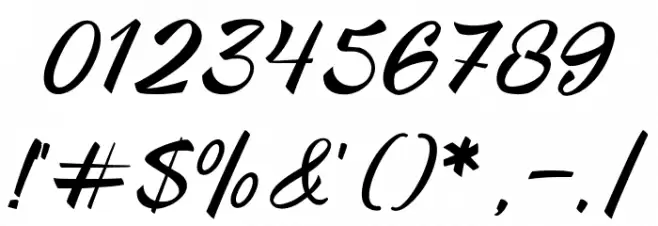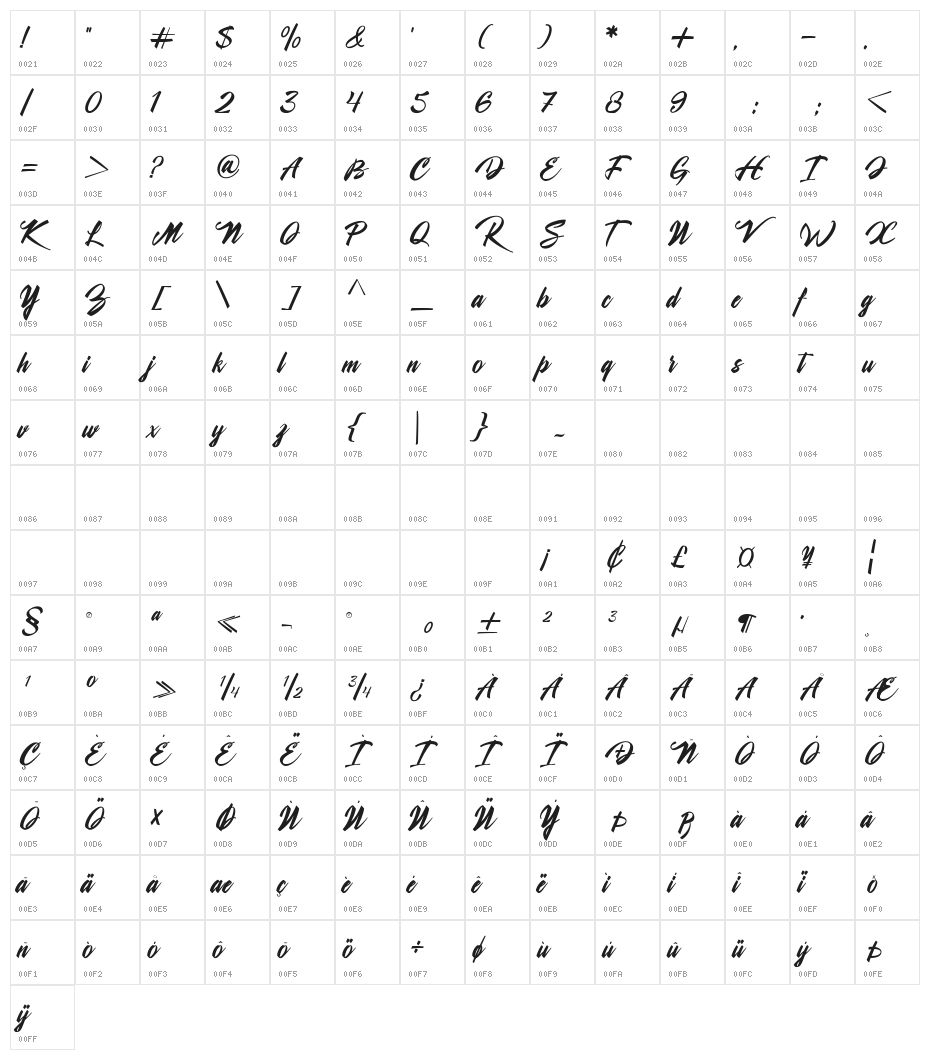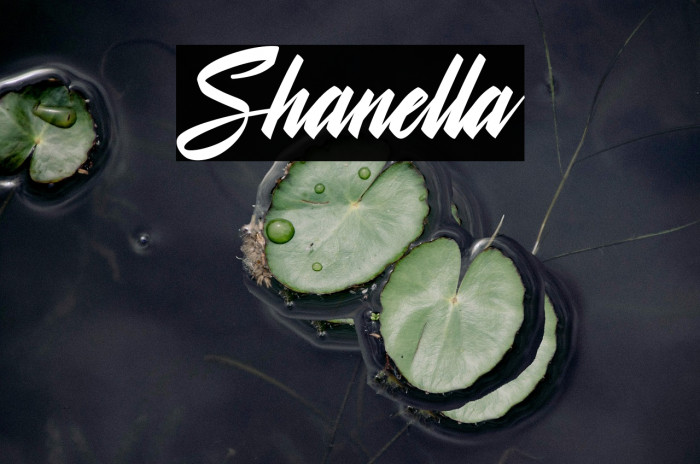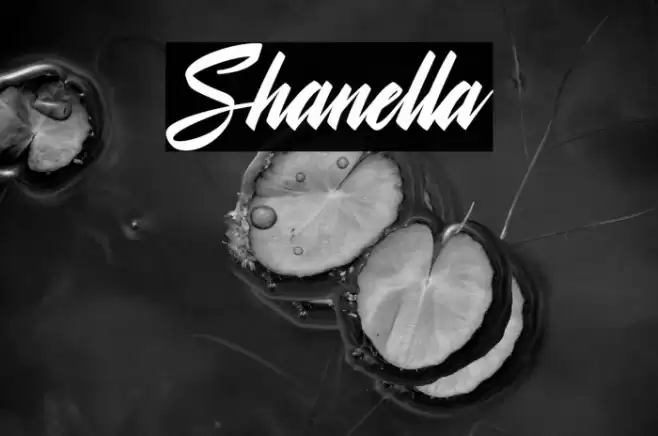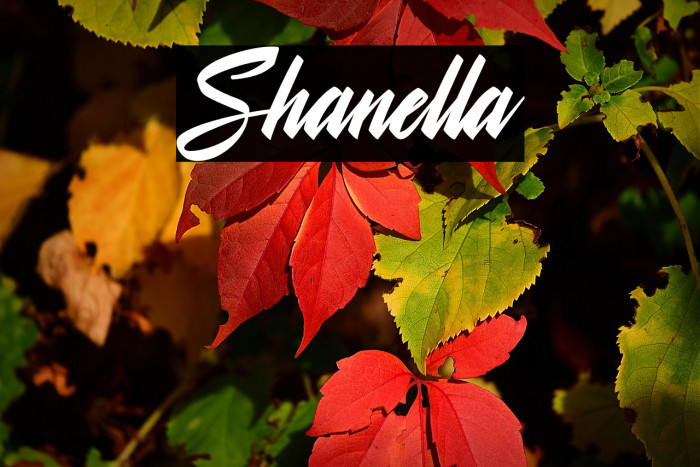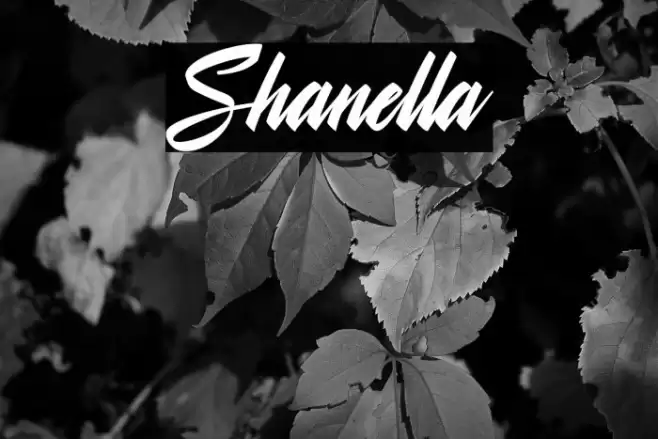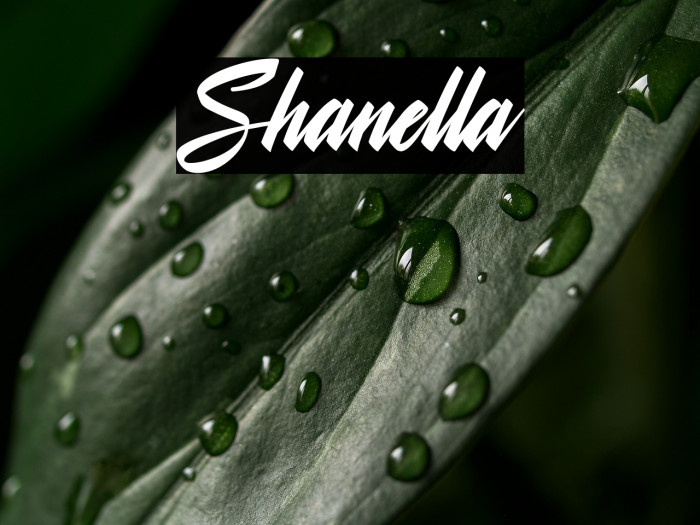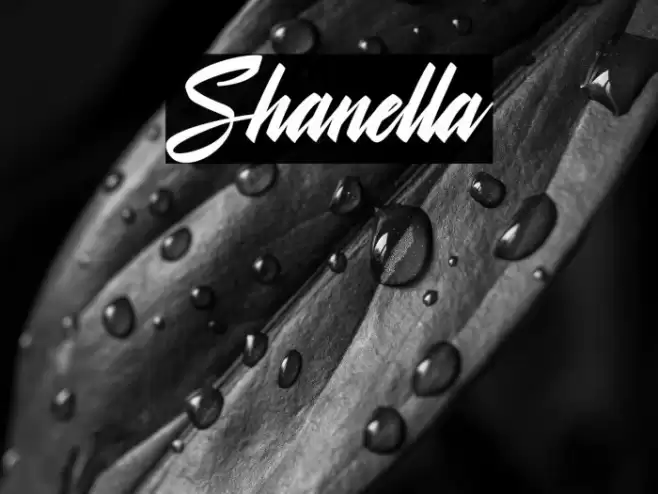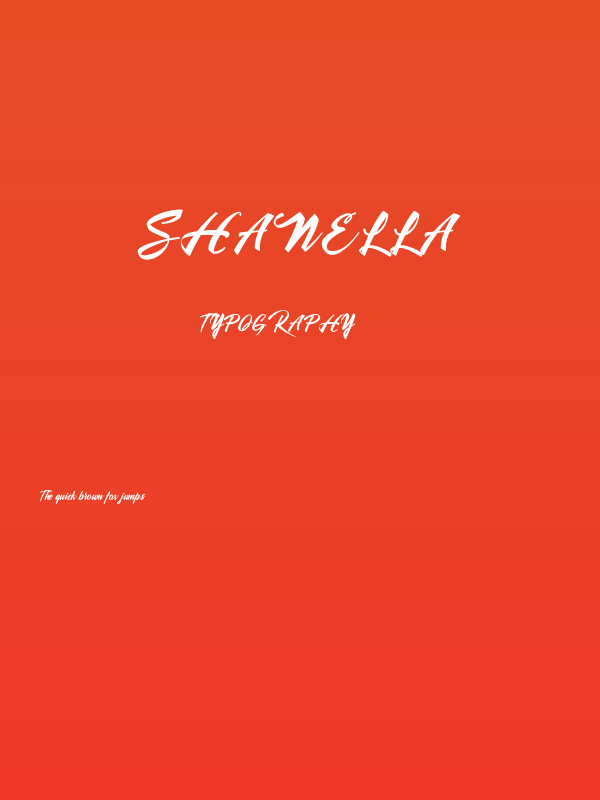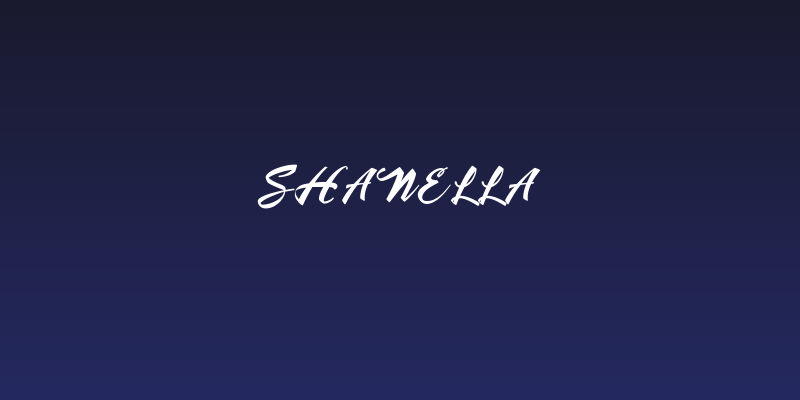
Shanella Font
Shanella Description
This font features a bold, cursive style with a dynamic and flowing script. The letters are elegantly connected, giving a sense of movement and fluidity. The uppercase characters are slightly more elaborate, with decorative flourishes that enhance their visual appeal. The lowercase letters maintain a consistent style, ensuring readability while retaining the font's artistic flair. Numbers and special characters are designed to match the overall aesthetic, providing a cohesive look across all elements. The font's bold strokes and high contrast make it stand out, suitable for projects that require a touch of elegance and sophistication.
| Proposed Projects | Ideal for wedding invitations, branding, logos, and elegant packaging designs. |